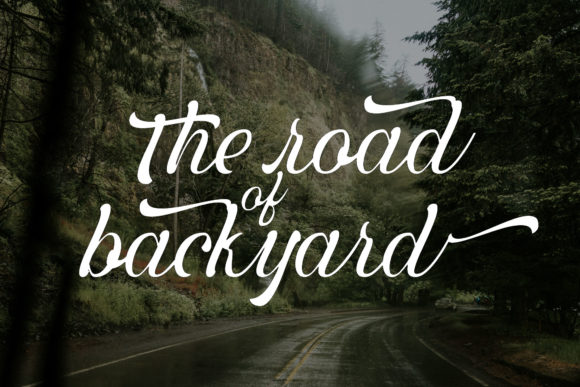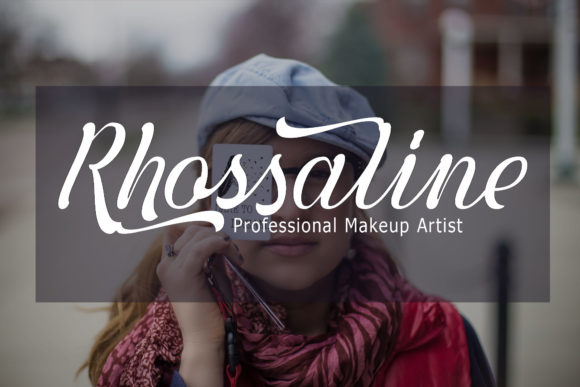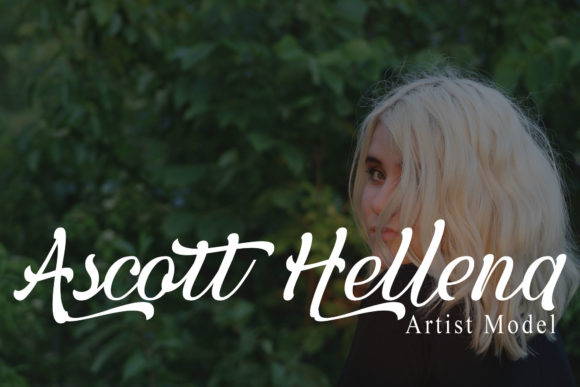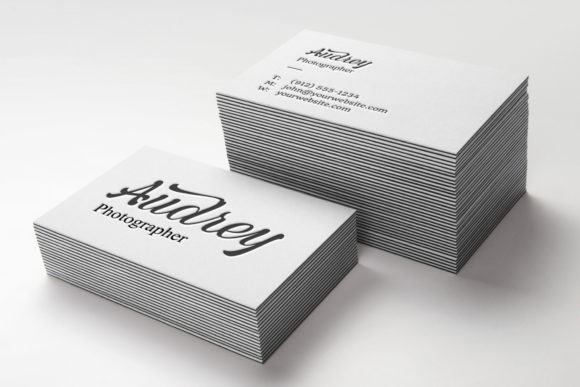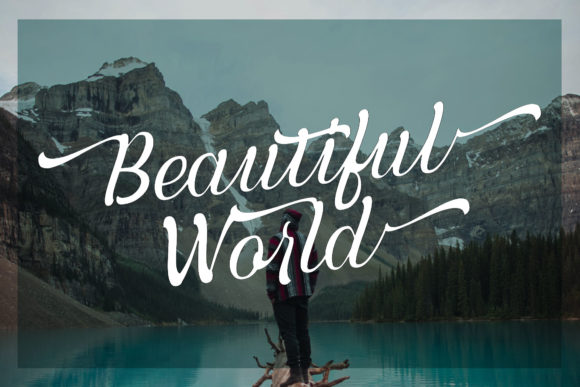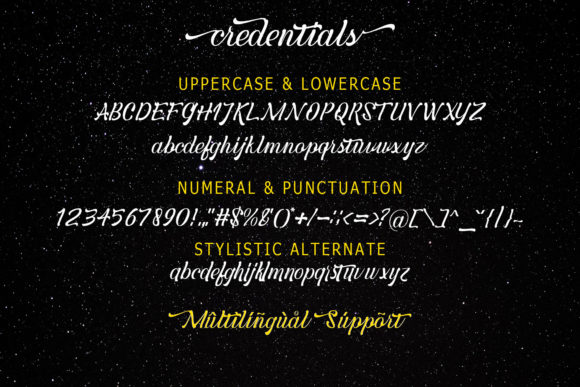
Unleash Your Creativity with Credentials Font: A Playful and Dynamic Script
Are you tired of using the same old fonts in your designs? Look no further than Credentials Font, a playful and dynamic script that’s full of life. With its unique charm, Credentials Font is sure to inspire you to create something truly special. In this article, we’ll dive into the world of Credentials Font and explore its features, benefits, and uses.
What is Credentials Font?
Credentials Font is a modern script font that’s designed to add a touch of personality to your designs. Its playful and dynamic nature makes it perfect for a wide range of projects, from creative branding and advertising to crafting and DIY tutorials. With its unique and charming aesthetic, Credentials Font is sure to stand out from the crowd.
Features of Credentials Font
So, what makes Credentials Font so special? Here are just a few of its key features:
• Playful and Dynamic: Credentials Font is a script font that’s full of life and energy. Its playful nature makes it perfect for designs that need a touch of whimsy and fun.
• Unique Charm: With its distinctive aesthetic, Credentials Font has a unique charm that’s sure to capture the attention of your audience.
• Highly Versatile: Credentials Font is a highly versatile font that can be used in a wide range of projects, from digital designs to print materials.
• Easily Readable: Despite its playful nature, Credentials Font is still highly readable, making it perfect for designs that need to convey a message.
Benefits of Using Credentials Font
So, why should you use Credentials Font in your designs? Here are just a few of the benefits:
• Adds Personality to Your Designs: With Credentials Font, you can add a touch of personality to your designs and make them stand out from the crowd.
• Perfect for Creative Projects: Credentials Font is perfect for creative projects, such as branding, advertising, and crafting tutorials.
• Increases Engagement: The playful and dynamic nature of Credentials Font can help increase engagement and capture the attention of your audience.
• Easy to Use: Credentials Font is easy to use and can be easily integrated into your designs.
Uses of Credentials Font
So, what can you use Credentials Font for? Here are just a few ideas:
• Branding and Advertising: Use Credentials Font to add a touch of personality to your branding and advertising materials.
• Crafting and DIY Tutorials: Credentials Font is perfect for crafting and DIY tutorials, where you want to add a touch of whimsy and fun.
• Digital Designs: Use Credentials Font in your digital designs, such as social media graphics, blog posts, and email newsletters.
• Print Materials: Credentials Font can also be used in print materials, such as brochures, flyers, and posters.
Tips for Using Credentials Font
Here are a few tips for using Credentials Font:
• Use it Sparingly: While Credentials Font is playful and dynamic, it can be overwhelming if used too much. Use it sparingly to add a touch of personality to your designs.
• Pair it with Other Fonts: Credentials Font pairs well with other fonts, such as sans-serif fonts. Experiment with different font combinations to find the perfect look.
• Experiment with Colors: Credentials Font looks great in a variety of colors. Experiment with different colors to find the perfect look for your design.
In conclusion, Credentials Font is a playful and dynamic script that’s full of life and energy. With its unique charm and highly versatile nature, it’s perfect for a wide range of projects, from creative branding and advertising to crafting and DIY tutorials. So why not give Credentials Font a try and see how it can inspire you to create something truly special?